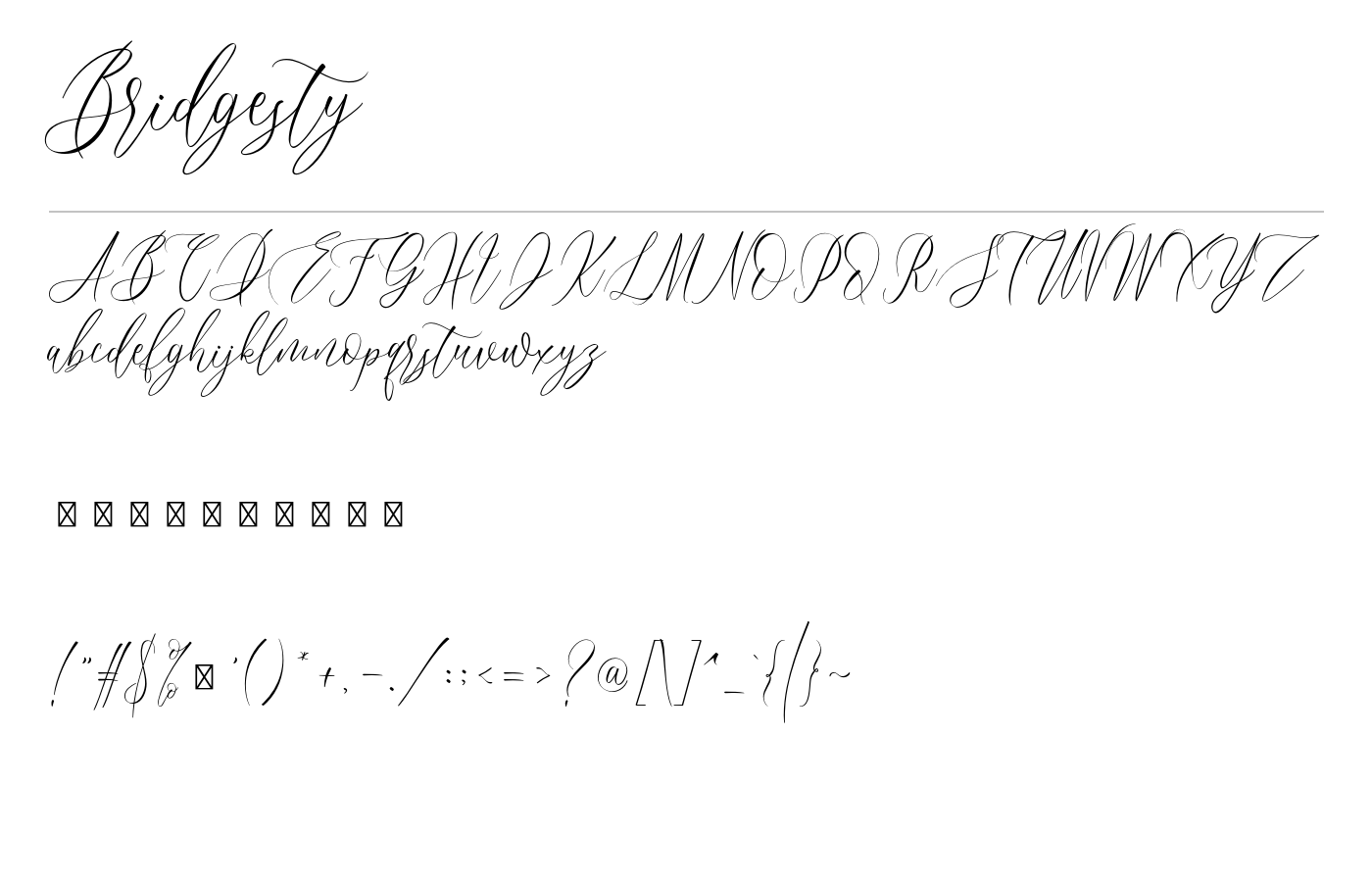
Bridgesty is an elegant, thin script font with delicate, flowing strokes that mimic natural handwriting. Its tall, slender letterforms and graceful curves create a sophisticated and refined feel, ideal for designs that seek a romantic or luxurious touch. This font works beautifully for invitations, branding, and decorative headlines where a stylish, personal expression is desired.
Bridgesty Font
About Bridgesty Font
| Font family | Bridgesty Font |
| Designer | Anton Cahyono |